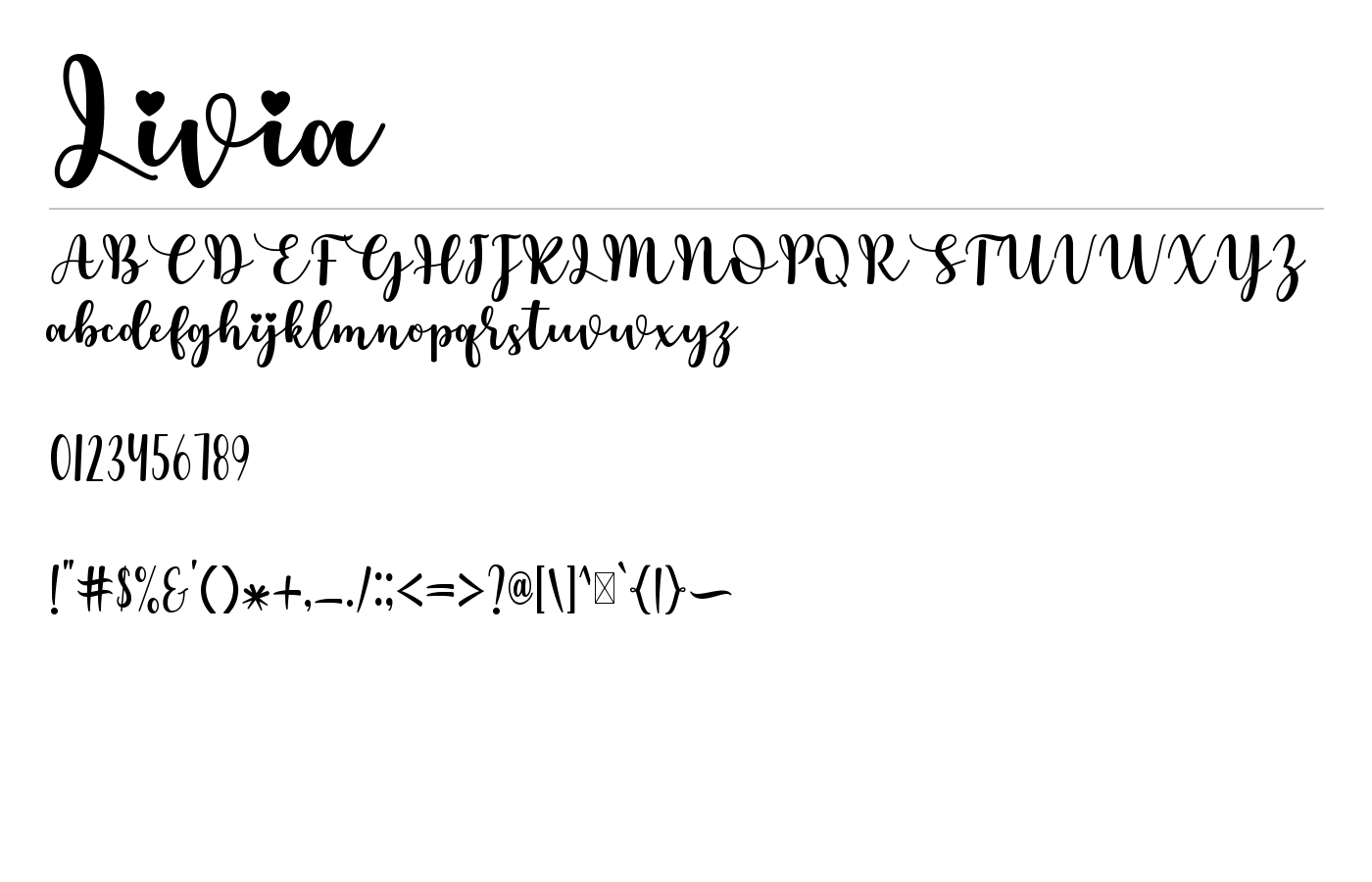
Livia is a charming script font with a playful, handwritten feel characterized by soft, flowing curves and unique heart-shaped dots above the i's. Its moderately tall x-height and thin to medium stroke weight give it an elegant yet casual personality, perfect for feminine, romantic, or creative branding and invitations. This font works beautifully in logos, greeting cards, and headlines where a warm, personal touch is desired.
Livia Font
About Livia Font
| Font family | Livia Font |
| Designer | Nopianti |